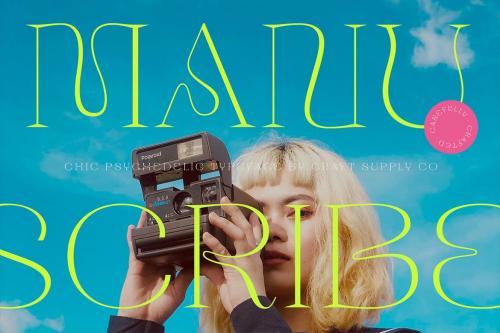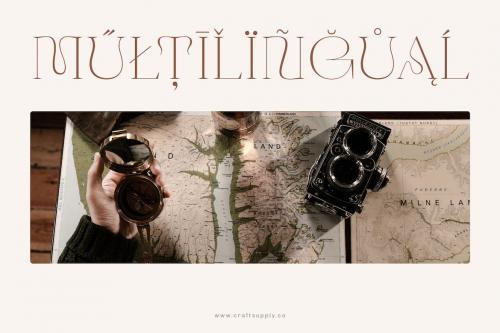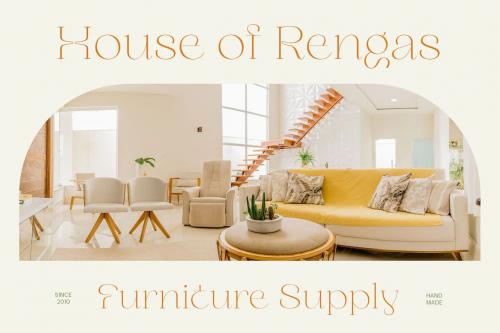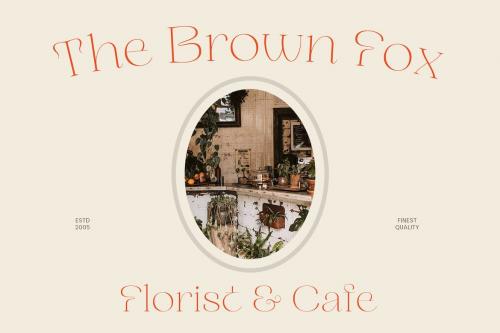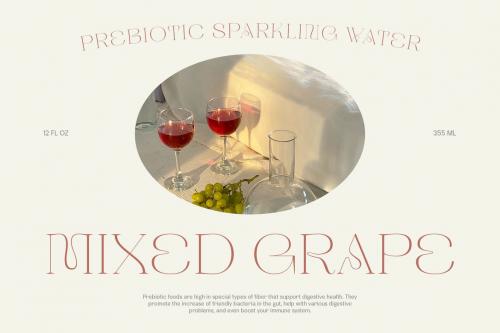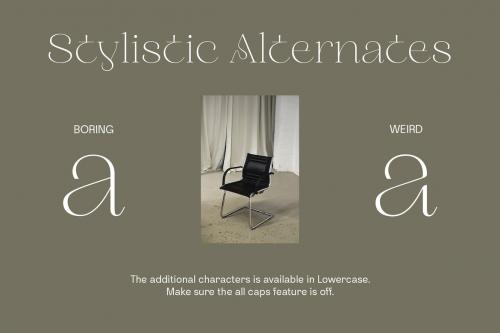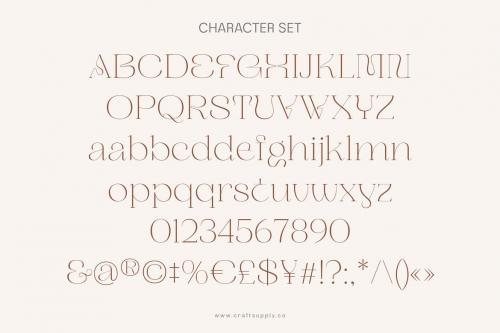
曼书体 - 抒情字体
Manuscribe is a chic psychedelic typeface with smooth flow and sharp serif that make it stand out for display or short text purposes. It can be used to create almost all types of design projects like print materials. Just use your imagination and your project will become more alive and look great than ever with this typeface.
You want to make a greeting card or a package design, or even a brand identity, craft design, any DIY project, book title, wedding font, pop vintage design, retro design or any purpose to make your art / design project look pretty and trendy? Feel free to play with this typeface!
Features :
Uppercase & Lowercase
Numerals & Punctuations (OpenType Standard)
Accents (Multilingual characters)